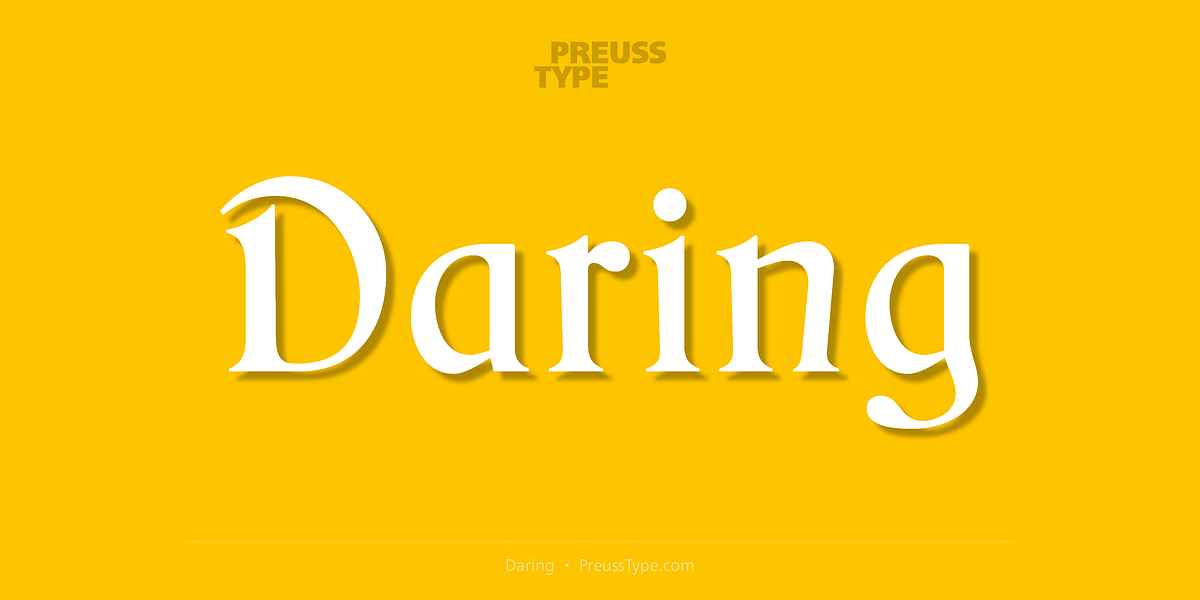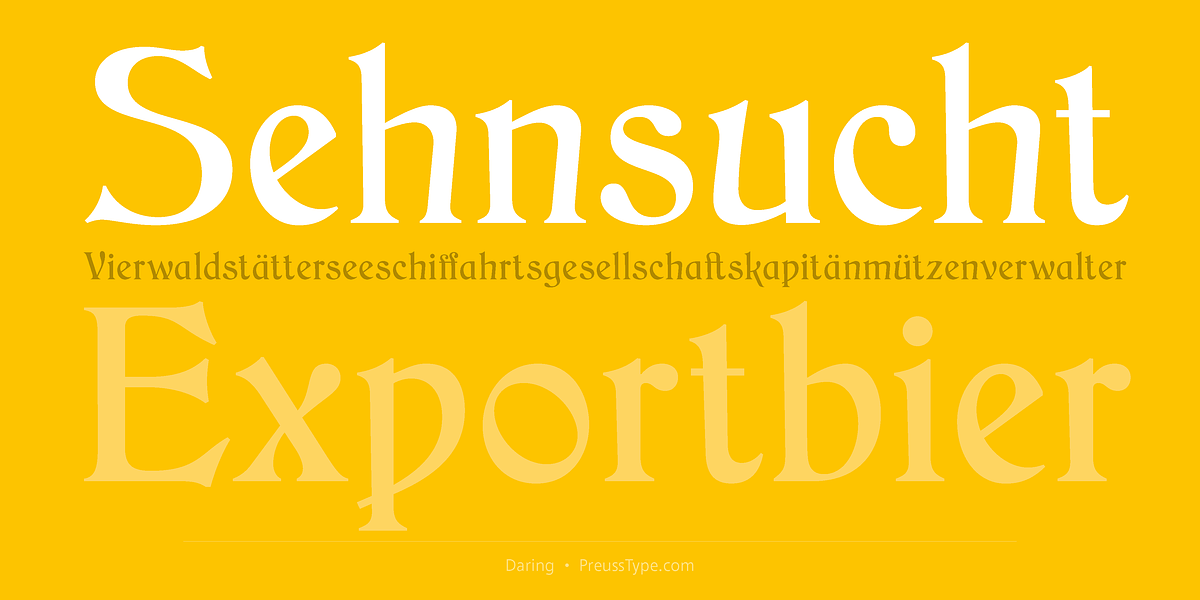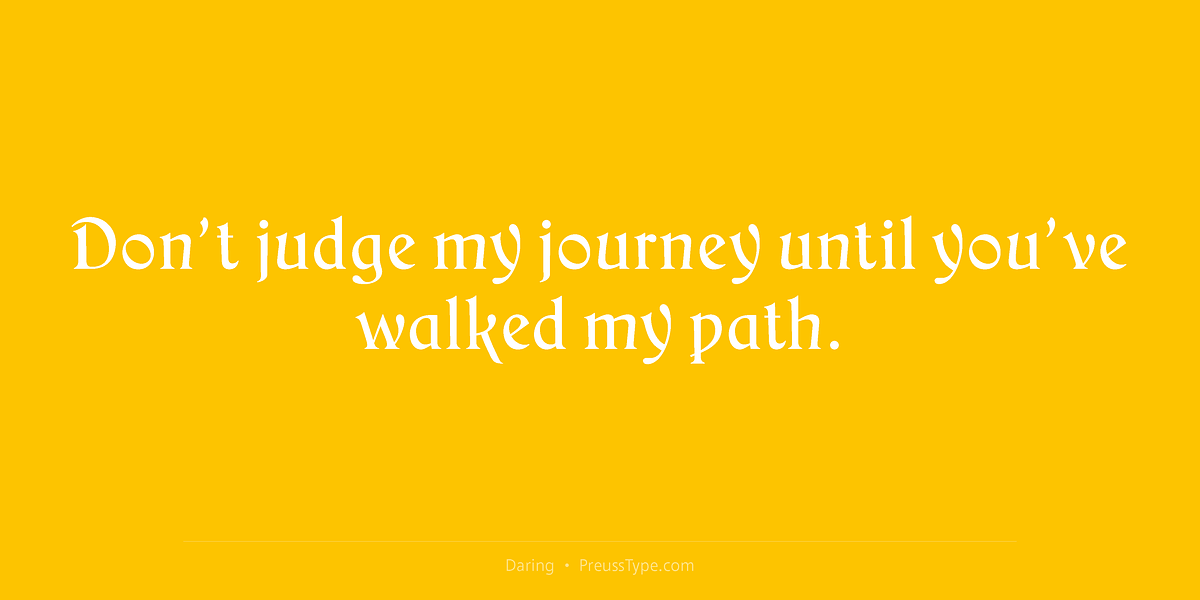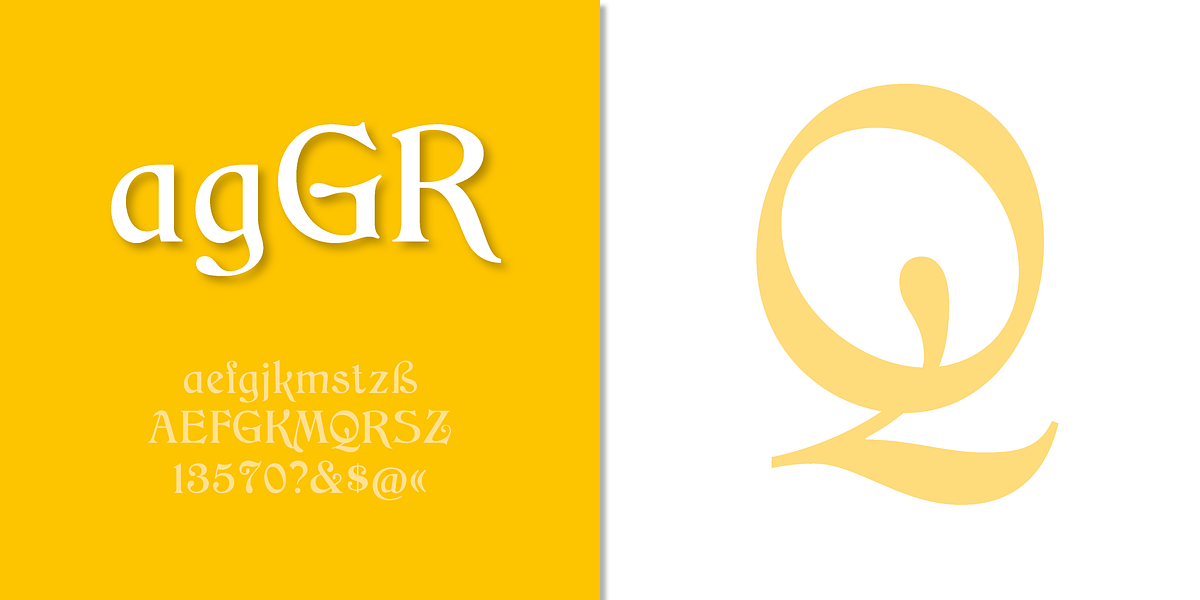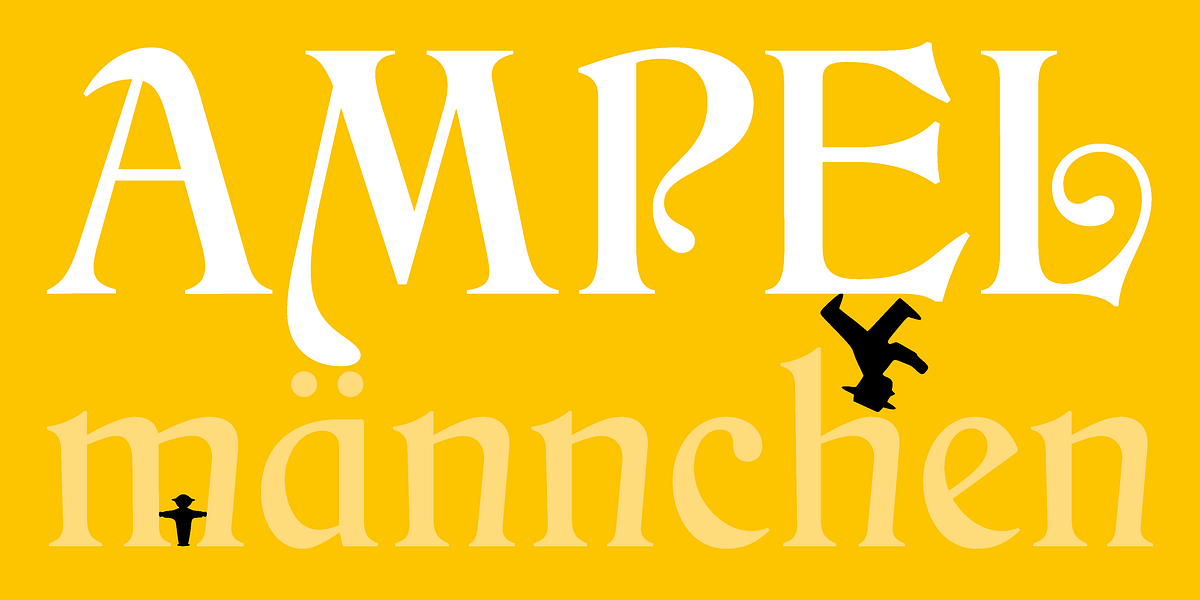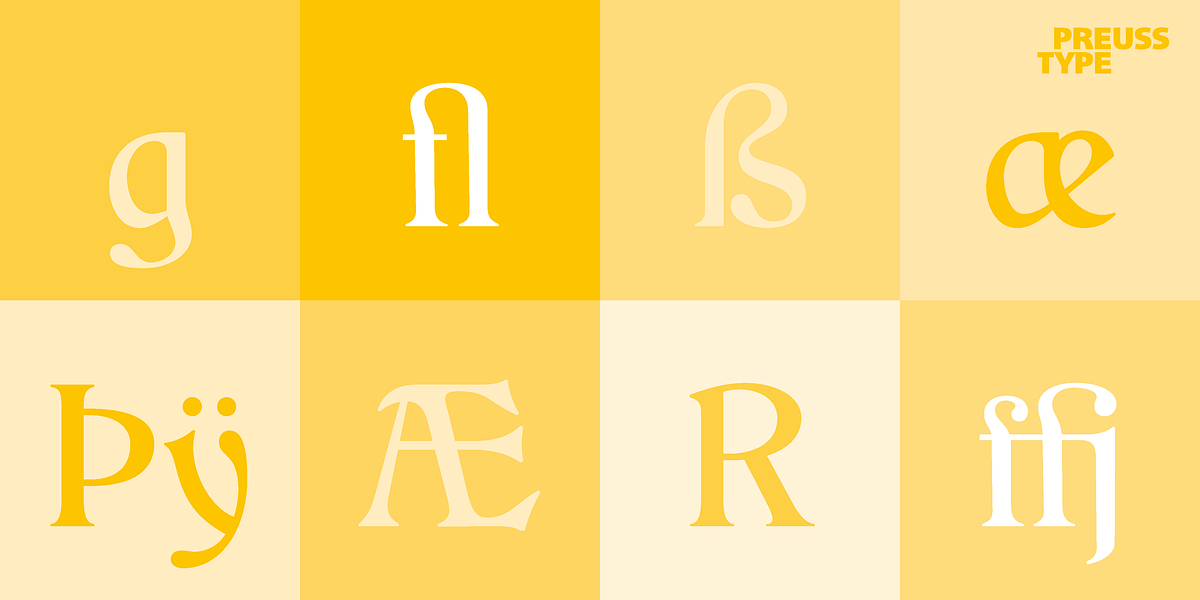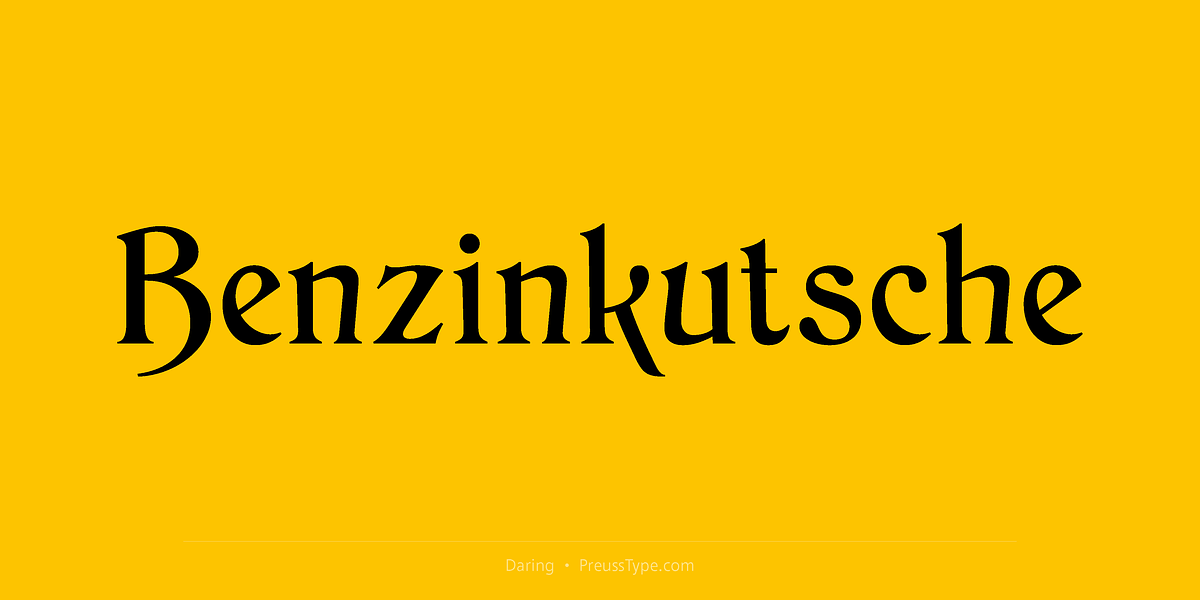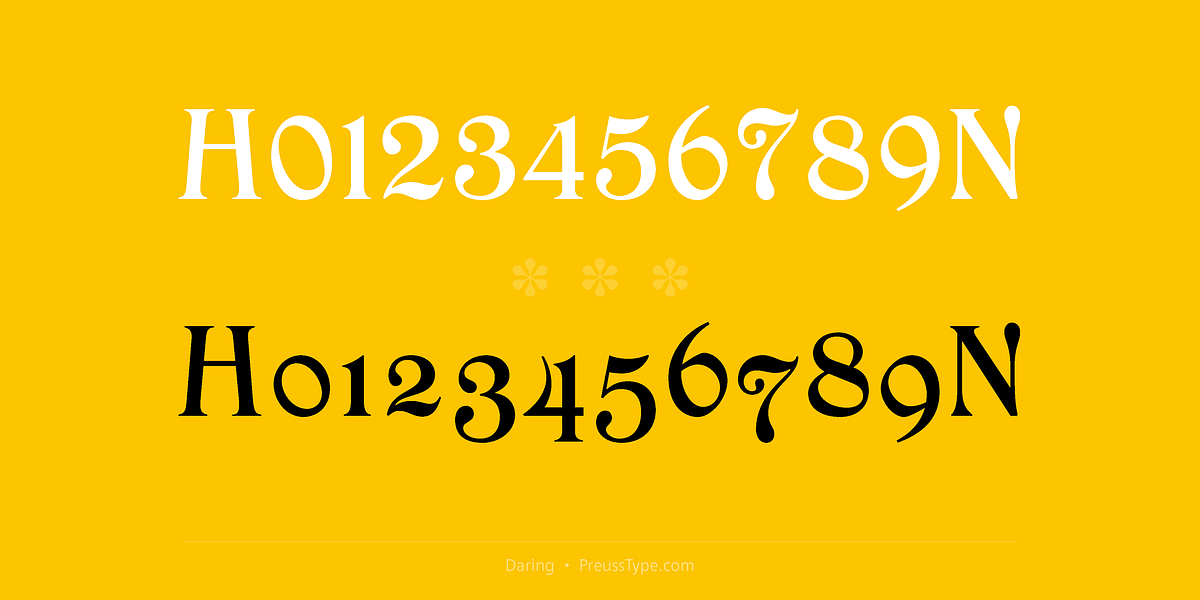
Daring
Daring, originally designed by Hermann Ihlenburg in 1897 as Childs, is a quintessential example of Art Nouveau typography. Its distinctive calligraphic style, characterized by swirling lines, loops, and unique letter shapes, makes it perfect for creating visually striking headlines, advertisements, and posters. The digital version includes expanded character support with alternates, accented characters, punctuation, and currency symbols.